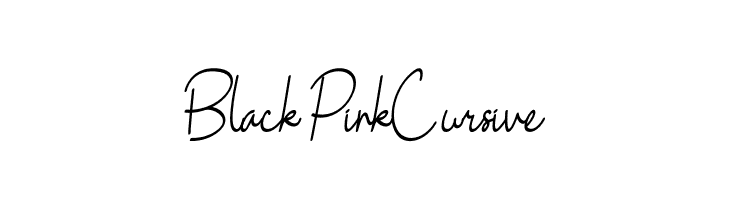
• Black Pink Cursive caratteri
A playful and elegant cursive font with fluid, connected letterforms.
• Black Pink Cursive caratteri
A flowing, elegant cursive font with smooth, connected letters.